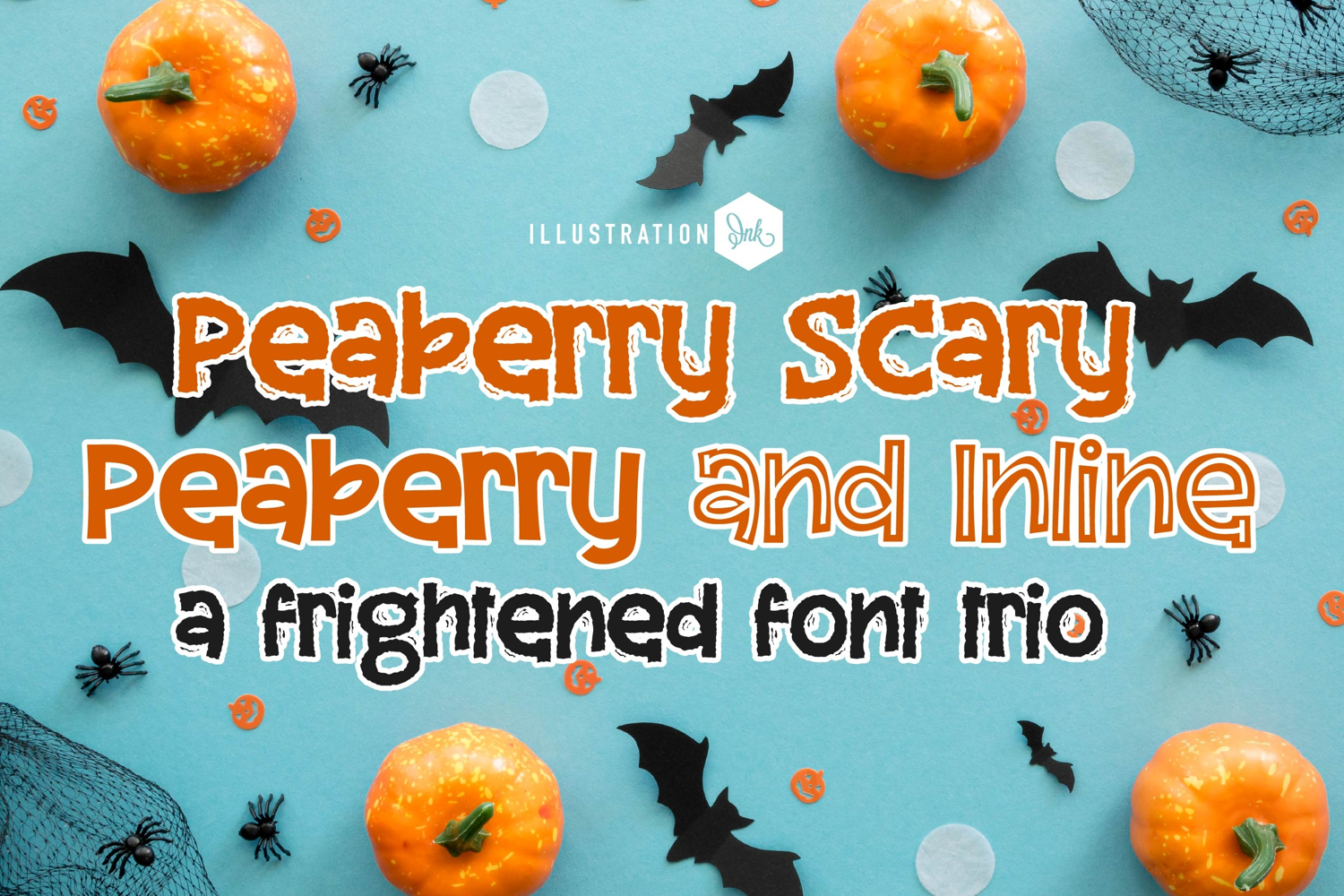
Peaberry Scary Font Trio
This hand-crafted font trio combines a scared, frightened font with a simple, unfrightened version and another version with an inline. With all family members combined, you get 9 fonts all together!
Hand-crafted fonts can be either formal or informal, and they can be used for a variety of purposes. Some of the characteristics of handwritten fonts include: The letters are not perfectly uniform in size or shape. There may be slight variations in the spacing between letters and words. The font may have a "wiggly" or "squiggly" appearance. The font may be difficult to read at small sizes. Handwritten fonts can be a great way to add a casual touch to your designs. They can also be used to create a sense of nostalgia or whimsy. However, it is important to choose a handwritten font that is appropriate for the project you are working on. A formal handwritten font may not be appropriate for a casual invitation, while an informal handwritten font may not be appropriate for a corporate document.
• The letters are not perfectly uniform in size or shape.
• There may be slight variations in the spacing between letters and words.
• The font may have a "wiggly" or "squiggly" appearance.
• The font may be difficult to read at small sizes.